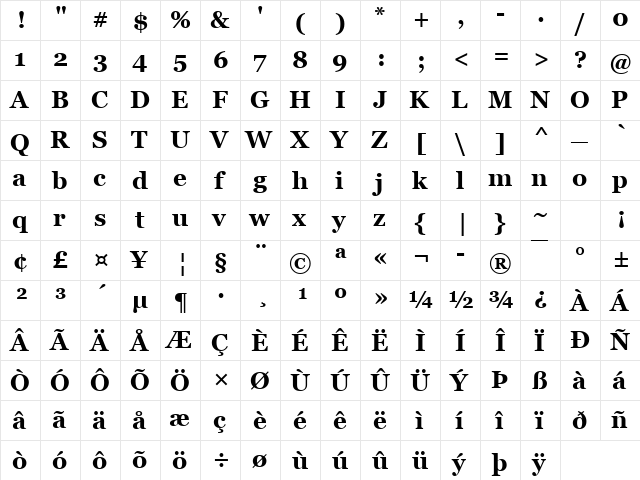
Georgia Bold
Design Context for Georgia Typeface
Georgia offers clean, dependable letterforms without strong stylistic allegiance, making it a practical choice for designers who need flexibility. Its bold stroke weight gives it real presence on the page.